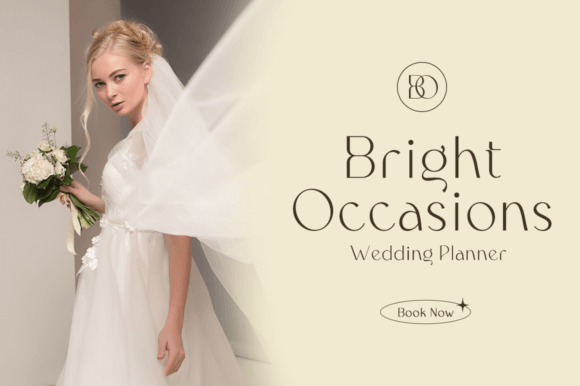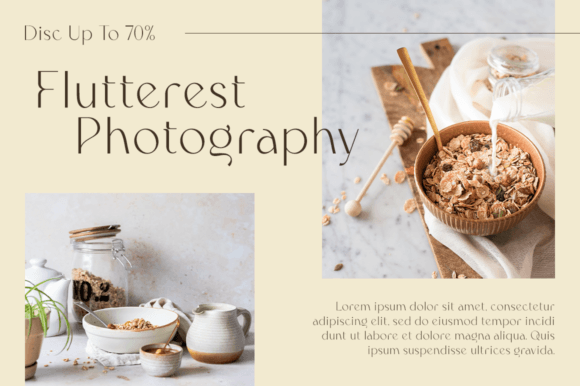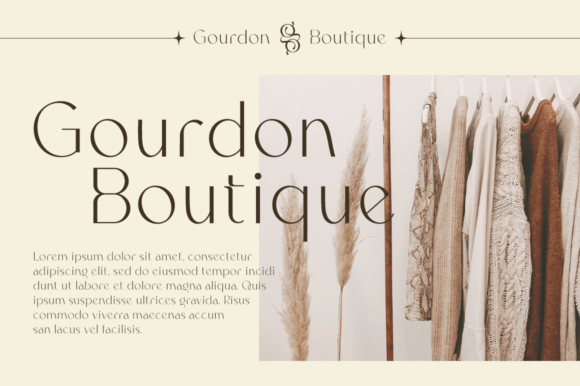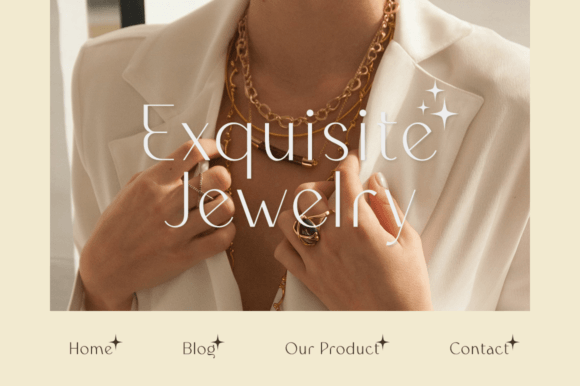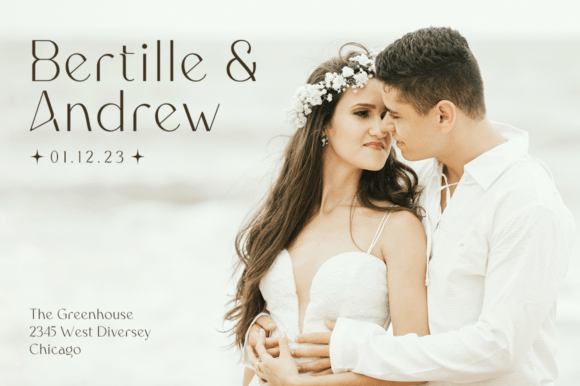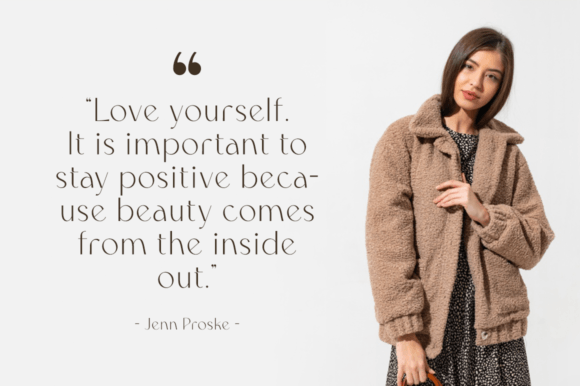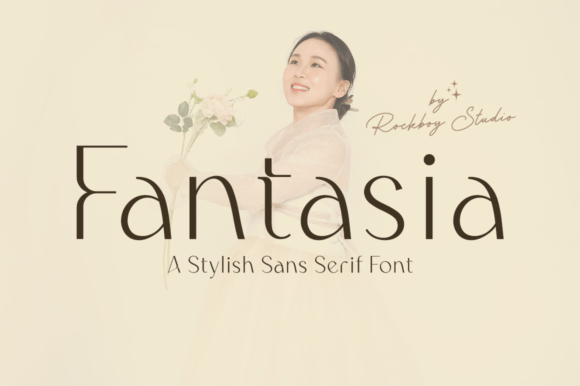
Fantasia Font: Elevate Your Crafting Ideas with Elegance
Are you a designer, crafter, or DIY enthusiast looking for a font that can add a touch of elegance and sophistication to your projects? Look no further than the Fantasia Font. This beautiful sans serif font is perfect for a wide range of crafting ideas, from cards to branding, labels, and more. In this article, we’ll explore the features and benefits of the Fantasia Font, and show you how it can take your creative projects to the next level.
What is Fantasia Font?
Fantasia Font is a stunning sans serif font that exudes elegance and refinement. Its clean lines, simple shapes, and precise curves make it a versatile font that can be used for a variety of design projects. Whether you’re creating a greeting card, a logo, or a label, Fantasia Font is the perfect choice. Its beauty and sophistication will add a professional touch to your work, making it stand out from the crowd.
Features of Fantasia Font
Fantasia Font has several features that make it an ideal choice for designers and crafters. Some of its key features include:
• Elegant and Beautiful Design: Fantasia Font has a sleek and modern design that is both elegant and beautiful. Its simple yet sophisticated style makes it perfect for a wide range of design projects.
• Sans Serif: The font is a sans serif font, which means it doesn’t have any decorative lines or flourishes. This makes it easy to read and perfect for body text.
• Versatile: Fantasia Font is a versatile font that can be used for a variety of design projects, from cards to branding, labels, and more.
• Easy to Read: The font is easy to read, even at small sizes, making it perfect for body text.
Benefits of Using Fantasia Font
Using Fantasia Font in your design projects has several benefits. Some of the benefits include:
• Professional Look: Fantasia Font gives your design projects a professional look that will make them stand out from the crowd.
• Elegant and Sophisticated: The font adds an elegant and sophisticated touch to your designs, making them perfect for special occasions.
• Easy to Pair: Fantasia Font is easy to pair with other fonts, making it perfect for creating unique and creative designs.
• Wide Range of Uses: The font can be used for a wide range of design projects, from cards to branding, labels, and more.
How to Use Fantasia Font
Using Fantasia Font in your design projects is easy. Here are a few tips to get you started:
• Pair it with Other Fonts: Pair Fantasia Font with other fonts to create unique and creative designs.
• Use it for Headings: Use Fantasia Font for headings and titles to add an elegant and sophisticated touch to your designs.
• Experiment with Colors: Experiment with different colors to find the perfect combination that works with Fantasia Font.
In conclusion, Fantasia Font is a beautiful and elegant sans serif font that is perfect for a wide range of design projects. Its clean lines, simple shapes, and precise curves make it a versatile font that can be used for cards, branding, labels, and more. With its professional look, elegant and sophisticated style, and ease of use, Fantasia Font is a must-have for designers and crafters. So why wait? Add Fantasia Font to your creative projects today and make them extraordinary!
Whether you’re a seasoned designer or a DIY enthusiast, Fantasia Font is the perfect choice for your next project. So go ahead, get creative, and see what amazing designs you can create with Fantasia Font!